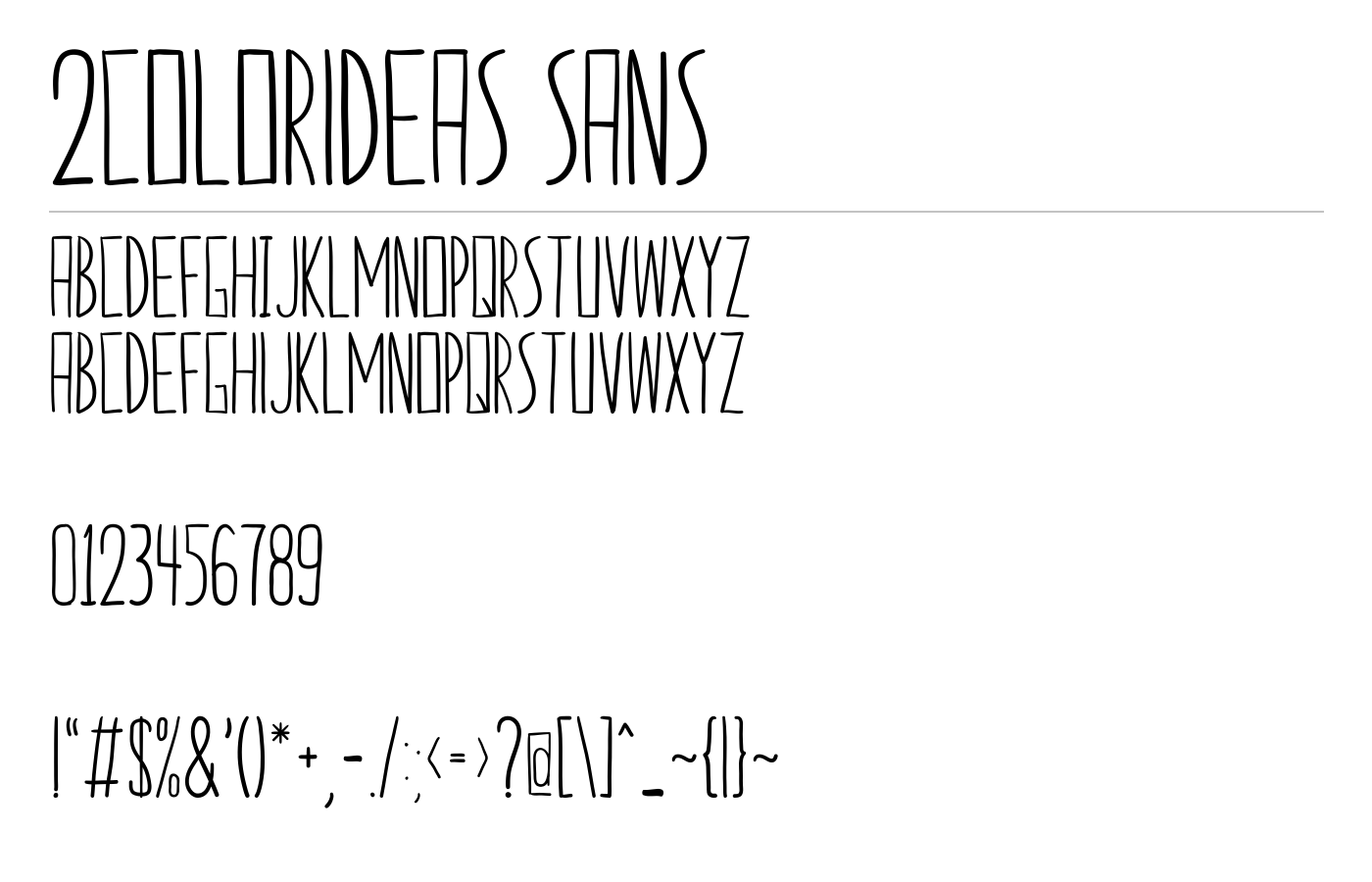
2colorideas Sans is a narrow, tall sans serif font with a playful and quirky character. Its thin, consistent stroke weight and slightly irregular letter shapes give it a hand-drawn, casual feel that works well for creative and informal designs. This font is ideal for headlines, logos, and projects that want to convey a unique, friendly, and modern vibe.
2colorideas sans Font
About 2colorideas sans Font
| Font family | 2colorideas sans Font |
| Designer | Kimberly Geswein |